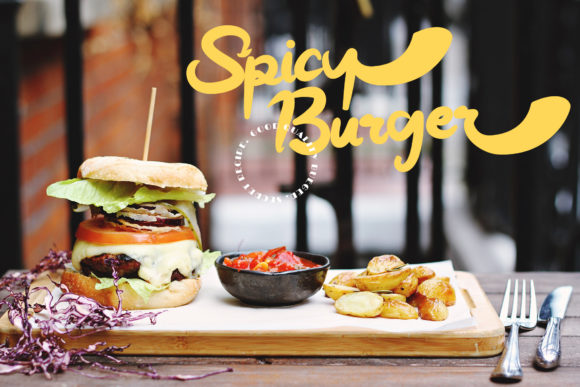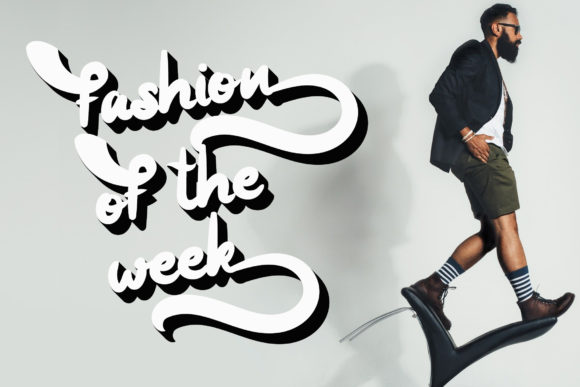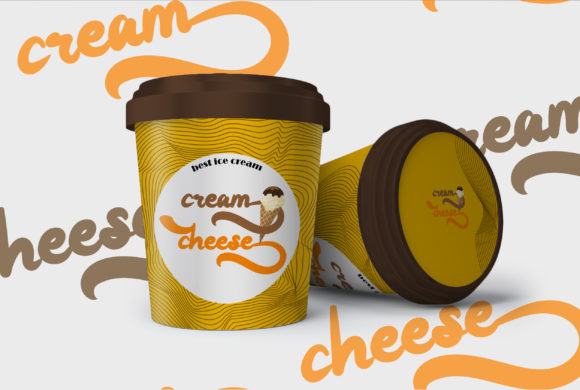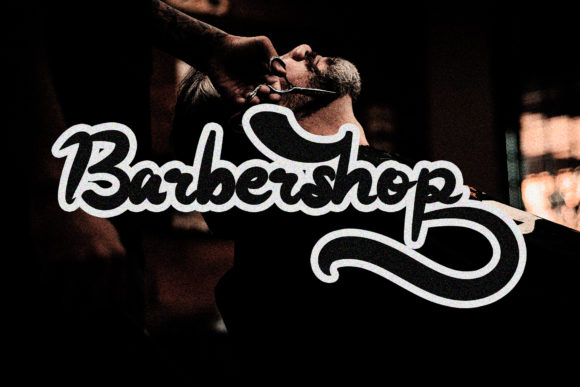
Bubble Bee Font: The Ultimate Handwritten Font for Stunning Designs
Are you tired of using the same old fonts for your designs? Look no further than the Bubble Bee Font, a flowing, bold, and beautiful handwritten font that’s sure to take your creations to the next level. With its unique features and versatility, this font is perfect for designers and crafters looking to add a touch of elegance and sophistication to their work.
What Makes Bubble Bee Font So Special?
Bubble Bee Font is a PUA encoded font, which means you can access all of the glyphs and swashes with ease. This feature makes it incredibly easy to use and customize, allowing you to create stunning designs that showcase your creativity. The font features a varying baseline, smooth lines, gorgeous glyphs, and stunning alternates, making it perfect for a wide range of design projects.
Key Features of Bubble Bee Font
- Flowing and Bold: The Bubble Bee Font has a beautiful, flowing script that’s perfect for creating eye-catching designs. Its bold style ensures that your text will stand out, making it ideal for headlines, titles, and more.
- Beautiful Handwritten Style: The font’s handwritten style gives it a personal and unique touch, making it perfect for designs that require a more human feel.
- PUA Encoded: The font’s PUA encoding makes it easy to access all of the glyphs and swashes, allowing you to customize your designs with ease.
- Varying Baseline: The font’s varying baseline adds a touch of elegance and sophistication to your designs, making it perfect for more formal projects.
- Smooth Lines and Gorgeous Glyphs: The font’s smooth lines and gorgeous glyphs ensure that your designs will look stunning and professional.
- Stunning Alternates: The font’s stunning alternates provide you with a range of options for customizing your designs, making it easy to create unique and eye-catching text.
Uses for Bubble Bee Font
The Bubble Bee Font is incredibly versatile, making it perfect for a wide range of design projects. Here are just a few ideas to get you started:
- Branding and Logo Design: The font’s bold and flowing style makes it perfect for creating stunning logos and branding materials.
- Wedding and Event Design: The font’s elegant and sophisticated style makes it ideal for wedding invitations, event posters, and more.
- Social Media Graphics: The font’s unique style makes it perfect for creating eye-catching social media graphics that will help you stand out from the crowd.
- Packaging Design: The font’s bold and beautiful style makes it perfect for packaging design, adding a touch of elegance and sophistication to your products.
Why Choose Bubble Bee Font?
With so many fonts on the market, it can be hard to choose the right one for your design project. Here are just a few reasons why you should choose the Bubble Bee Font:
- Unique and Eye-Catching: The font’s unique style ensures that your designs will stand out from the crowd, grabbing the attention of your audience.
- Elegant and Sophisticated: The font’s elegant and sophisticated style makes it perfect for more formal design projects, adding a touch of class and refinement.
- Easy to Use: The font’s PUA encoding and user-friendly design make it easy to use, even for those with limited design experience.
- Versatile: The font’s versatility makes it perfect for a wide range of design projects, from branding and logo design to social media graphics and packaging design.
In conclusion, the Bubble Bee Font is a stunning handwritten font that’s perfect for designers and crafters looking to add a touch of elegance and sophistication to their work. With its unique features, versatility, and ease of use, this font is sure to become a staple in your design toolkit. So why wait? Download the Bubble Bee Font today and start creating stunning designs that will leave a lasting impression!